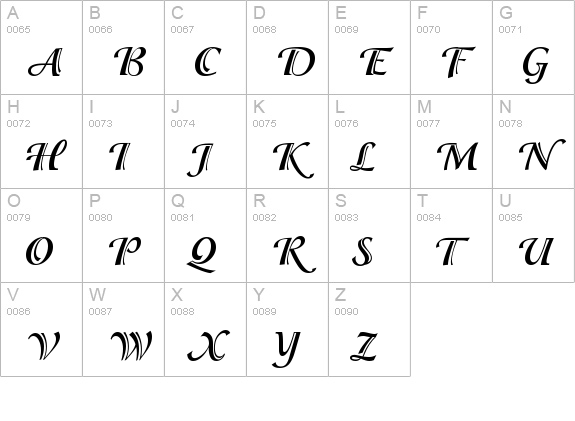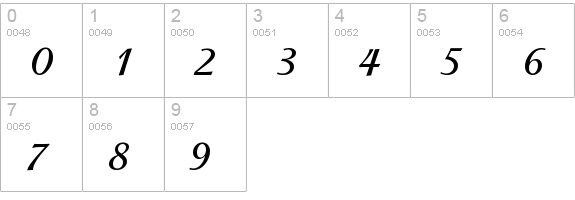
Isadora ICG Bold is a strong, high-contrast variant in the Isadora typeface family \xE2\x80\x94 well suited to headlines, attention-grabbing titles, and strong calls-to-action.
Isadora ICG Bold is a stunningly elegant font that exudes sophistication and grace. With its bold and confident strokes, this typeface captures attention and commands respect. The precise letterforms are beautifully balanced, making it an ideal choice for headlines, titles, and branding projects. What makes Isadora ICG Bold even more enticing is that it is freely available to download at FontsMarket.com. This means that designers and creatives can access this exceptional font without any cost, allowing them to elevate their designs without breaking the bank. Whether you're designing a fashion magazine, a luxury brand logo, or a high-end website, Isadora ICG Bold will instantly elevate your work to new heights of elegance and professionalism. Its sleek and modern aesthetic will make your designs stand out from the crowd, leaving a lasting impression on your audience. The versatility of Isadora ICG Bold is another noteworthy aspect. It can be used for both digital and print media, ensuring that your message is consistently conveyed across various platforms. Its legibility and readability guarantee that your content will be easily understood, whether it's a bold headline or a lengthy body of text. With Isadora ICG Bold, you have the freedom to explore your creativity and create visually captivating designs. Its timeless appeal and timeless appeal make it a valuable asset in any designer's toolkit. So, why wait? Head over to FontsMarket.com and download Isadora ICG Bold for free today, and unlock a world of endless design possibilities.